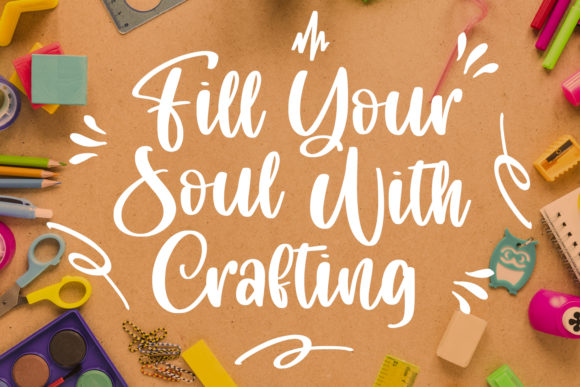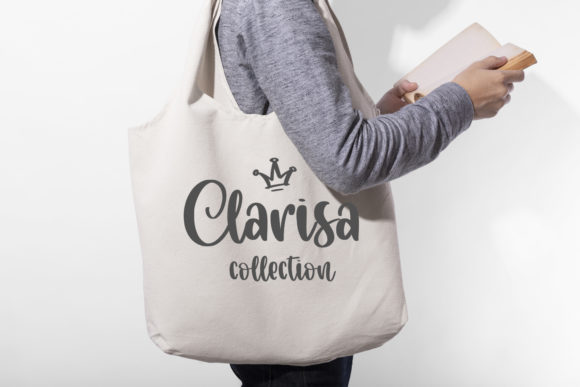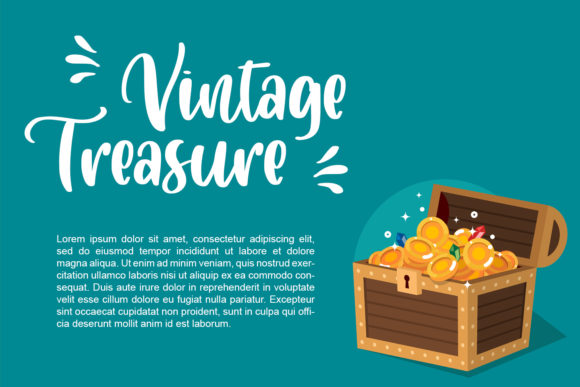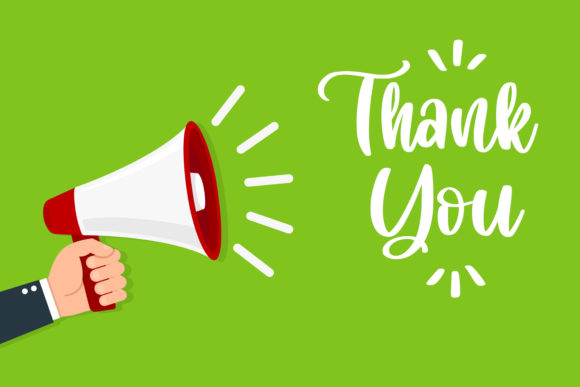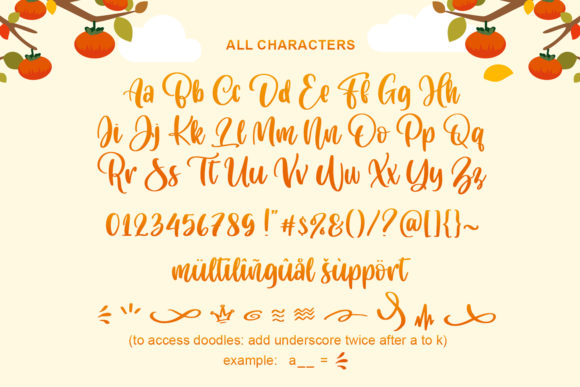
Cuteness Persimmon Font: The Ultimate Choice for Designers and Crafters
Are you tired of using the same old fonts for your design projects? Do you want to add a touch of personality and whimsy to your creations? Look no further than the Cuteness Persimmon font! This adorable handwritten font is perfect for designers and crafters who want to add a friendly and approachable feel to their work.
What Makes Cuteness Persimmon So Special?
Cuteness Persimmon is a cute and casual handwritten font that features an incredibly friendly feel. Its gorgeous swashes and ligatures make this script incredibly versatile, perfect for a wide range of design projects. Whether you’re looking for fonts for Instagram or calligraphy scripts for DIY projects, Cuteness Persimmon is the ultimate choice.
Key Features of Cuteness Persimmon Font
- Cute and Casual Handwritten Style: Cuteness Persimmon features a playful and informal handwritten style that’s perfect for designers and crafters who want to add a personal touch to their work.
- Gorgeous Swashes and Ligatures: The font features beautiful swashes and ligatures that add a touch of elegance and sophistication to any design project.
- Incredibly Versatile: Cuteness Persimmon is perfect for a wide range of design projects, from social media graphics to calligraphy scripts for DIY projects.
Cuteness Persimmon is perfect for designers and crafters who want to add a touch of personality to their work. Whether you’re creating social media graphics, calligraphy scripts, or DIY projects, this font is sure to turn your creative ideas into a true piece of art.
Use Cases for Cuteness Persimmon Font
- Social Media Graphics: Use Cuteness Persimmon to create eye-catching social media graphics that showcase your brand’s personality.
- Calligraphy Scripts: Create beautiful calligraphy scripts for DIY projects, such as wedding invitations, party decorations, and more.
- DIY Projects: Add a personal touch to your DIY projects, such as handmade cards, gift tags, and more.
- Branding and Packaging: Use Cuteness Persimmon to create unique and memorable branding and packaging designs.
Why Choose Cuteness Persimmon Font?
There are many fonts available that claim to be cute and friendly, but Cuteness Persimmon stands out from the rest. Here are just a few reasons why:
- Unique and Quirky: Cuteness Persimmon has a unique and quirky feel that’s sure to make your designs stand out.
- Highly Versatile: The font is highly versatile, making it perfect for a wide range of design projects.
- Easy to Use: Cuteness Persimmon is easy to use, even for designers and crafters who are new to handwriting fonts.
If you’re looking for a font that adds a touch of personality and whimsy to your design projects, look no further than Cuteness Persimmon. This adorable handwritten font is perfect for designers and crafters who want to create unique and memorable designs. With its gorgeous swashes and ligatures, Cuteness Persimmon is sure to turn any creative idea into a true piece of art!